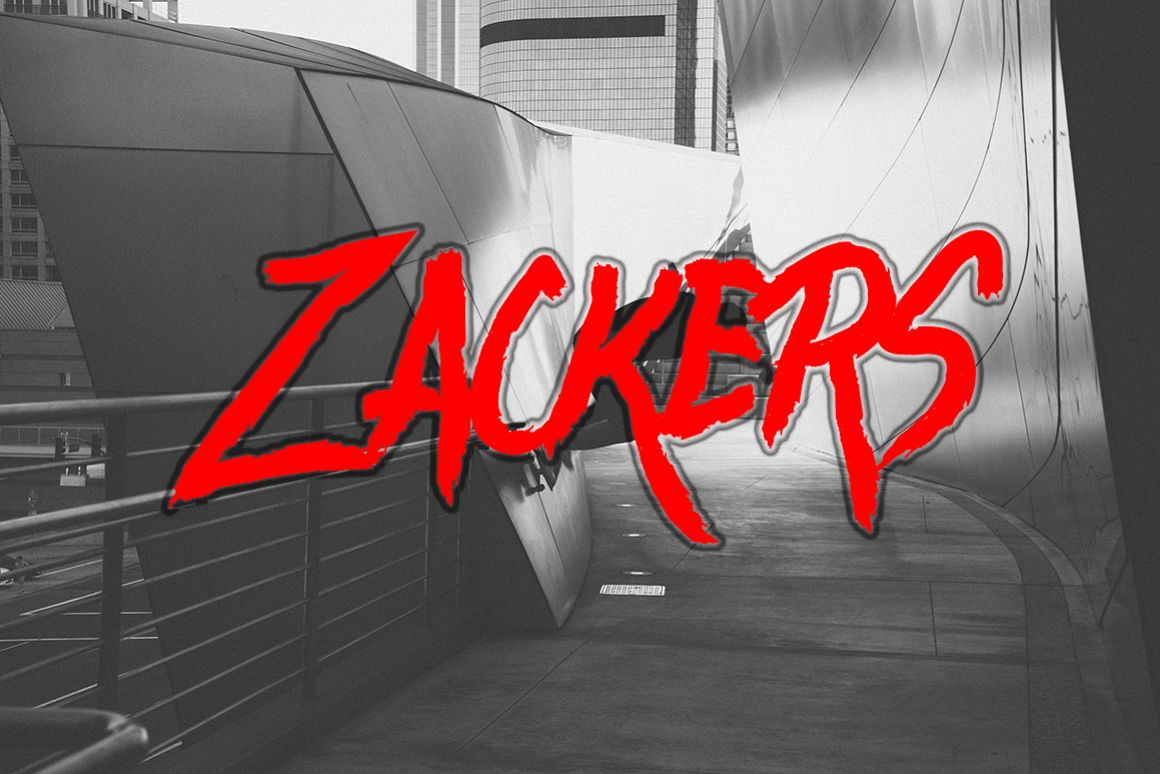
ZACKERS Brush
Zackers-Regular
New Present **ZACKERS**
**ZACKERS** is a Hard Brush, modern Brush, which was created to meet the needs of your next design project.
**ZACKERS**, Can used for various purposes. such as the title, logo, correspondence, wedding invitations, letterhead, signage, labels, newsletters, posters, badges, t-shirt, etc.
Comes with upper and lowercase characters, large set of punctuation glyphs.